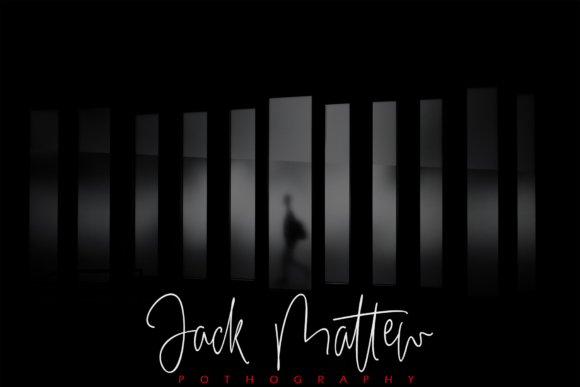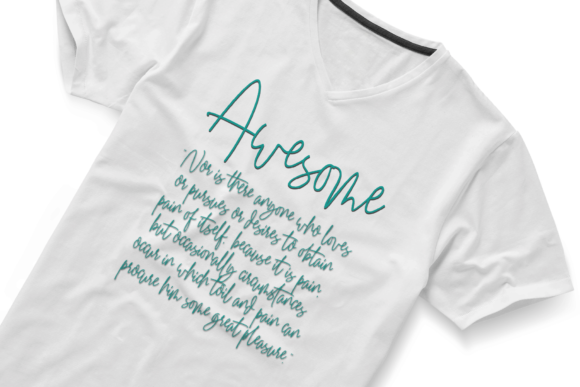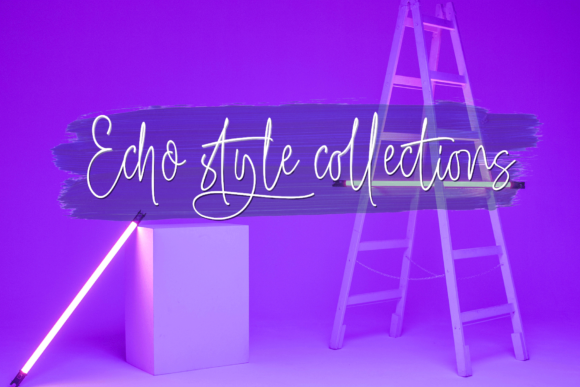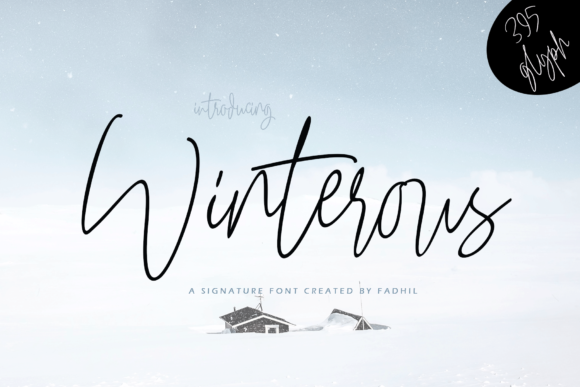
Winterous Font
About Winterous Font
Winterous is an elegant and modern handwritten font. It combines classic and modern stylesand features cute alternates and ligatures. Fall in love with its authentic feel and use it to create gorgeous wedding invitations, beautiful stationary art, eye-catching social media posts, and cute greeting cards.